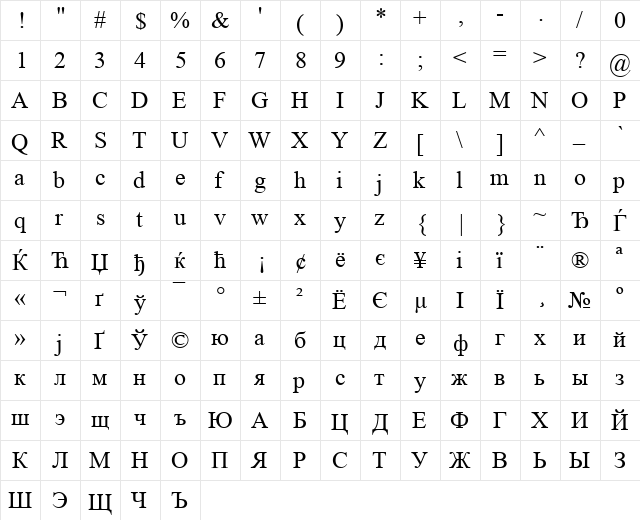
Times New Roman KOI8 Regular Font Preview
Times New Roman KOI8 Regular
Times New Roman KOI8 Regular Font Details
| Designer | Monotype Type Drawing Office - Stanley Morison, Victor Lardent 1932 |
Design Context for Times New Roman KOI8 Typeface
Times New Roman KOI8 takes a measured approach to typography — its balanced proportions and neutral character make it a reliable workhorse for both digital and print work.
Pro Tip: Use Times New Roman KOI8 in both headline and body roles to test its range before committing to a single application.